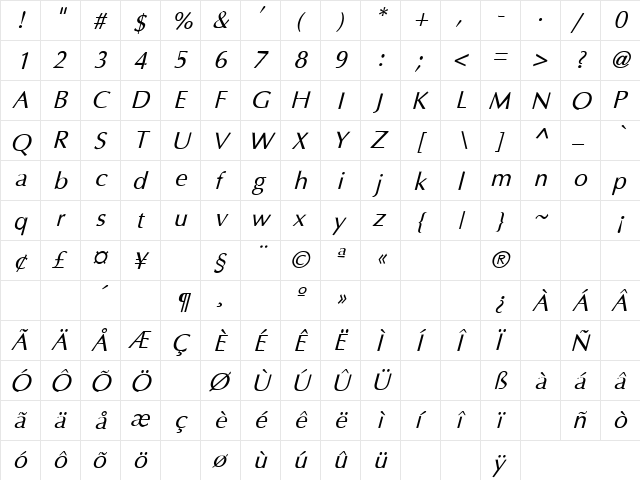
Friends 32 Italic Font Preview
Friends 32 Italic
Design Context for Friends 32 Typeface
Friends 32 is a composed and adaptable typeface that performs quietly and consistently across a wide range of design contexts. Its italic angle brings a sense of urgency and motion to the letterforms.
Pro Tip: Try Friends 32 for annotation and caption copy alongside an upright companion — the contrast in angle creates a dynamic but ordered typographic system.